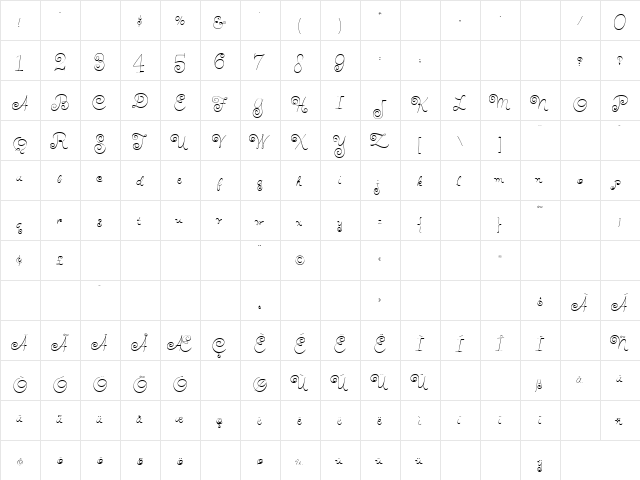
Hairspray Blonde
Design Context for Hairspray Typeface
Hairspray is a composed and adaptable typeface that performs quietly and consistently across a wide range of design contexts.